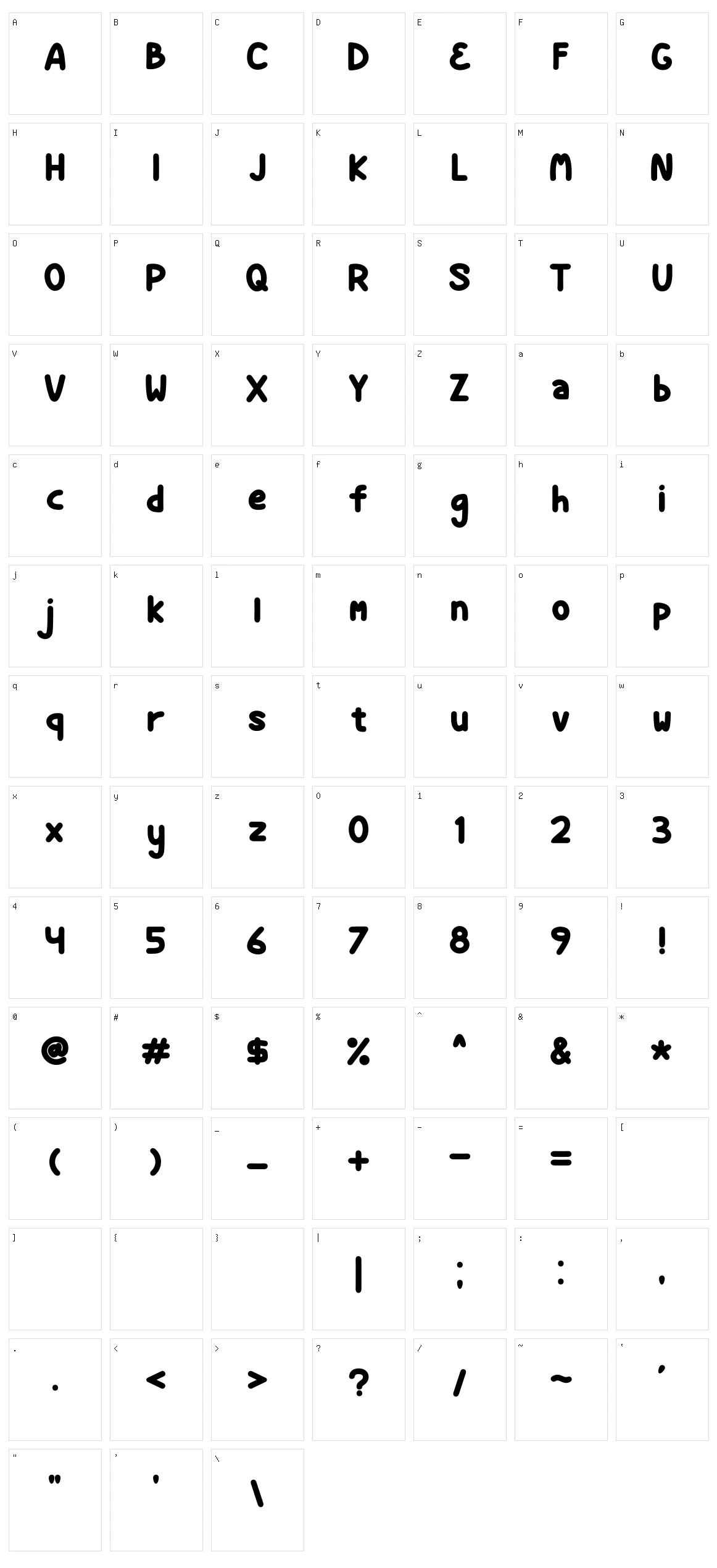
The free font Baby Bears is carefully designed by Appleberry Studio, showcasing a thoughtful balance of creativity and usability and falls under the Cartoon font style. When you download the ZIP file, it contains only 17.18 KB of font files, making it lightweight and quick to download. Please review the license details below to understand permitted usage and distribution rights. If license information is not available, we recommend using this font for personal projects only or contacting the author directly for commercial usage permissions.